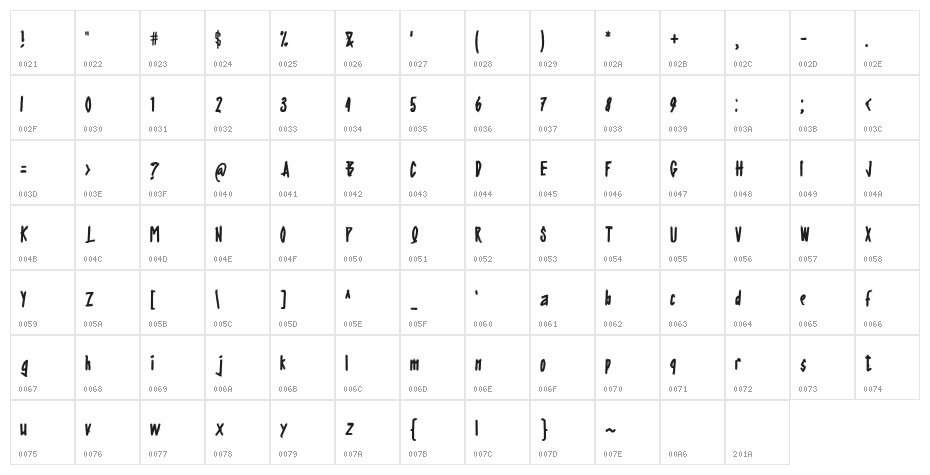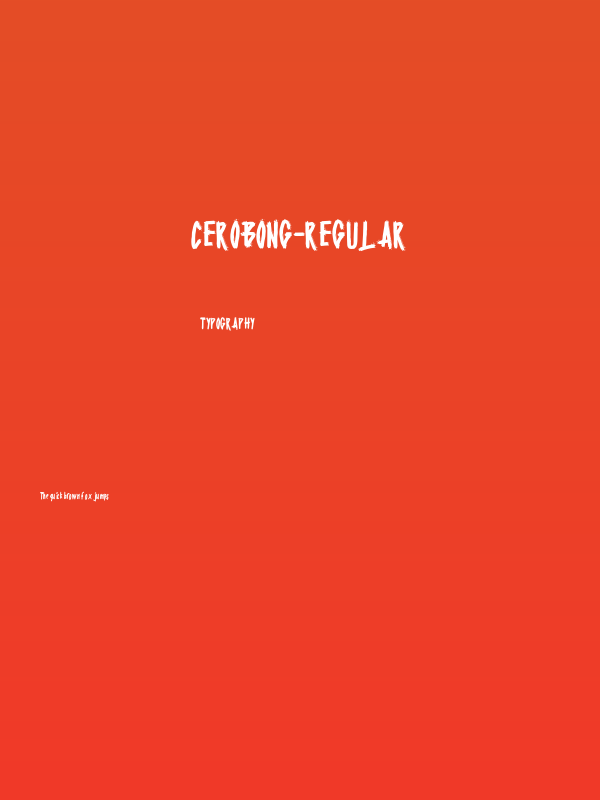
Cerobong-Regular Font
Cerobong-Regular Description
This font features a bold and dynamic style with a brush-like texture that gives it a hand-painted appearance. The characters are slightly irregular, adding a sense of movement and energy. The uppercase letters are tall and commanding, while the lowercase letters maintain a consistent flow. Numbers and special characters follow the same energetic style, making the font versatile for various creative applications. The overall impression is one of boldness and artistic flair, suitable for projects that require a strong visual impact.
| Overall Style | Modern, Artistic |
| Proposed Projects | Ideal for posters, album covers, branding, and any project needing a bold, artistic touch. |